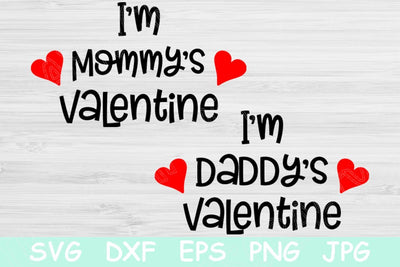
I'm Daddy's Valentine Svg Files Saying. Valentines Cut Files for Cricut and Silhouette. Hand Lettered Valentine's Svg Stencil with Hearts.
This valentine svg files that says i'm mommy's/daddy's valentine is the perfect valentines cut file to make your valentine items. It would look great on a custom shirt.